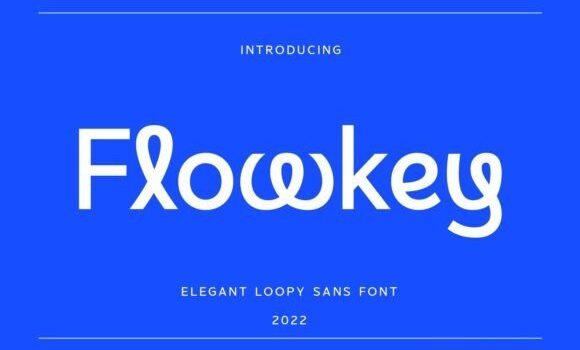
flowkey
Flowkey Font – Free Download Introduction to Flowkey Font Flowkey is a modern and casual sans serif font. 📸 Preview Gallery 6 images 📌 Product Name Flowkey Font 👤 Author Second Son Radiance 📂 Category Explore ⬇️ Download Flowkey Font